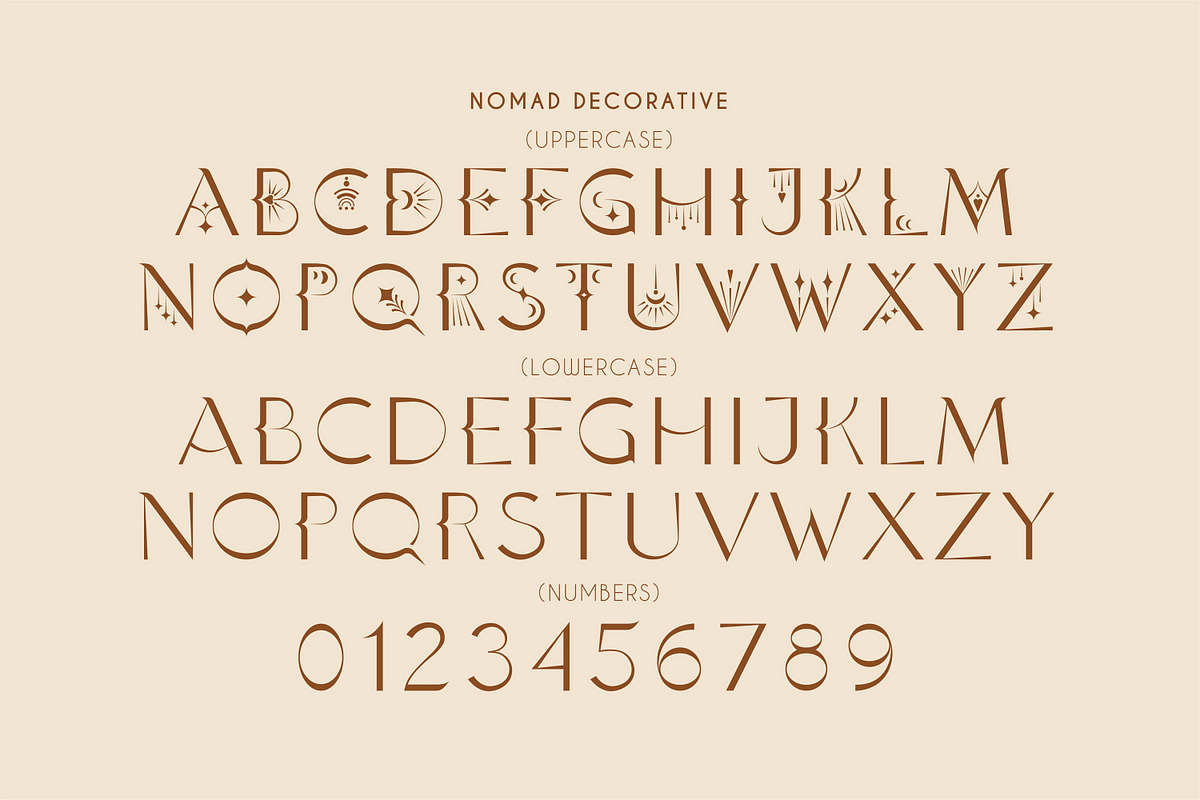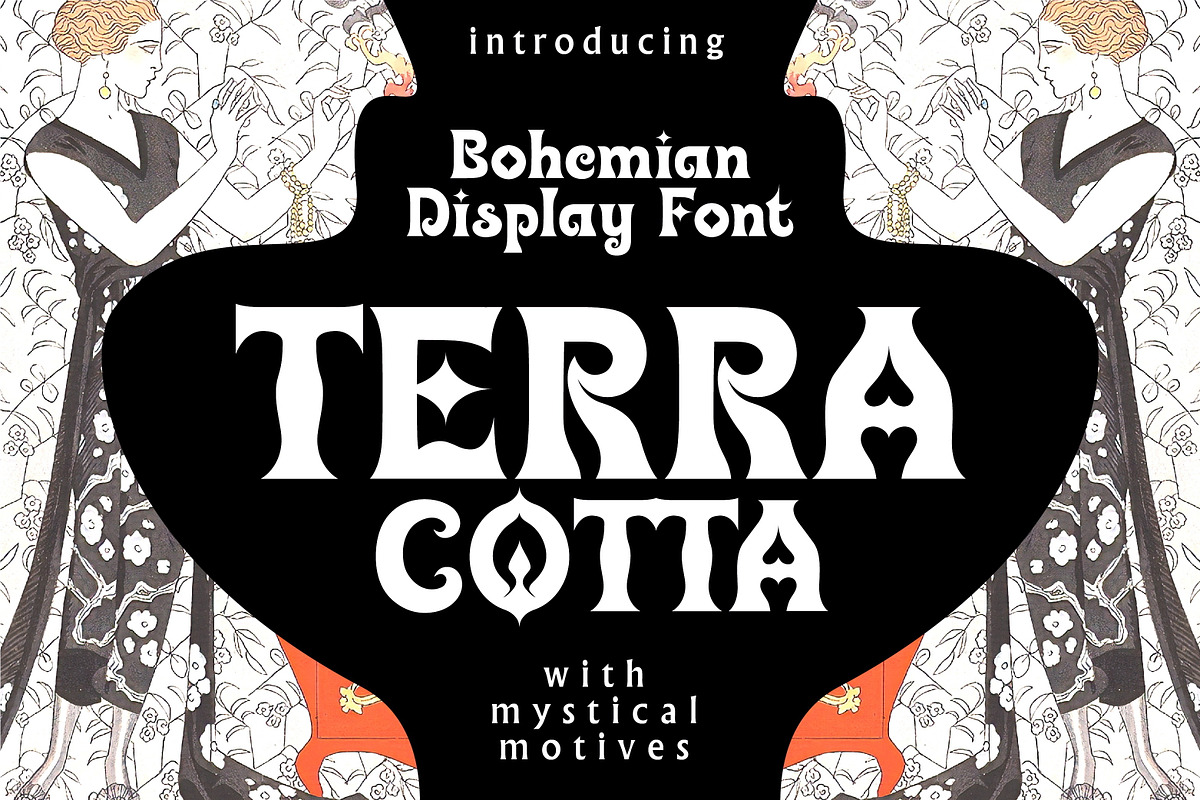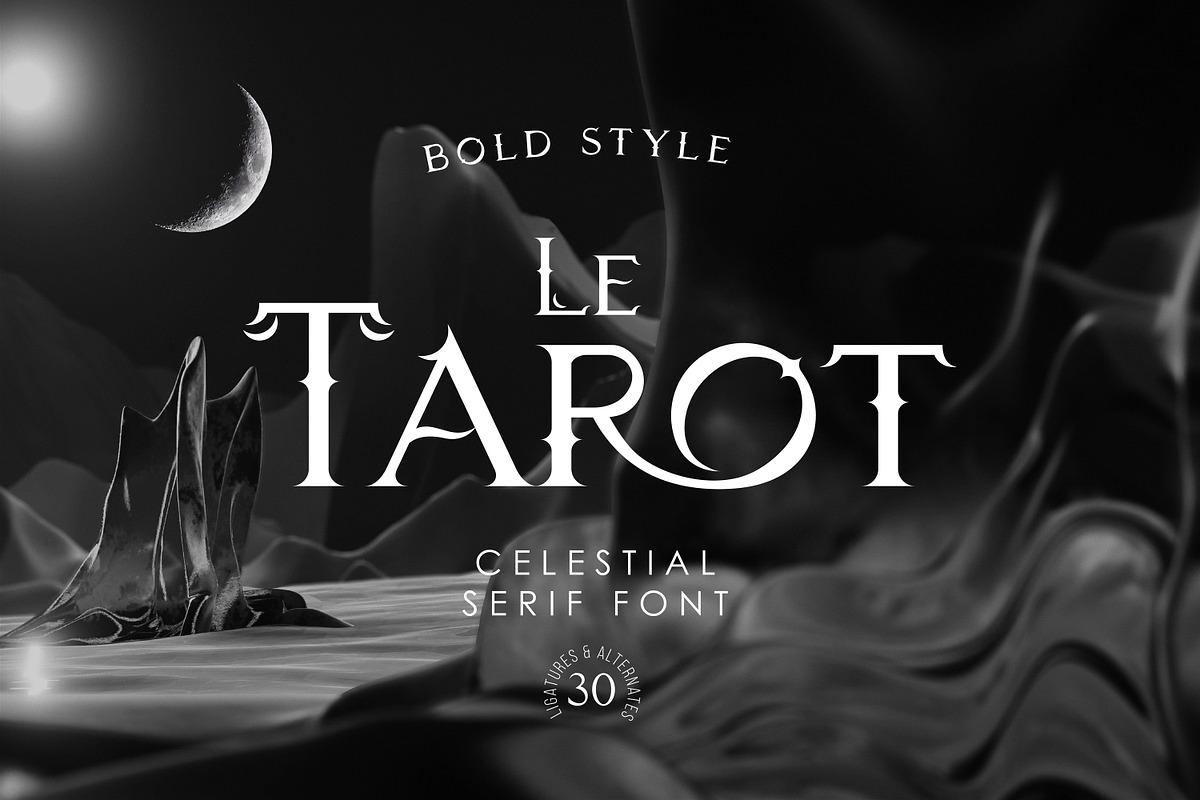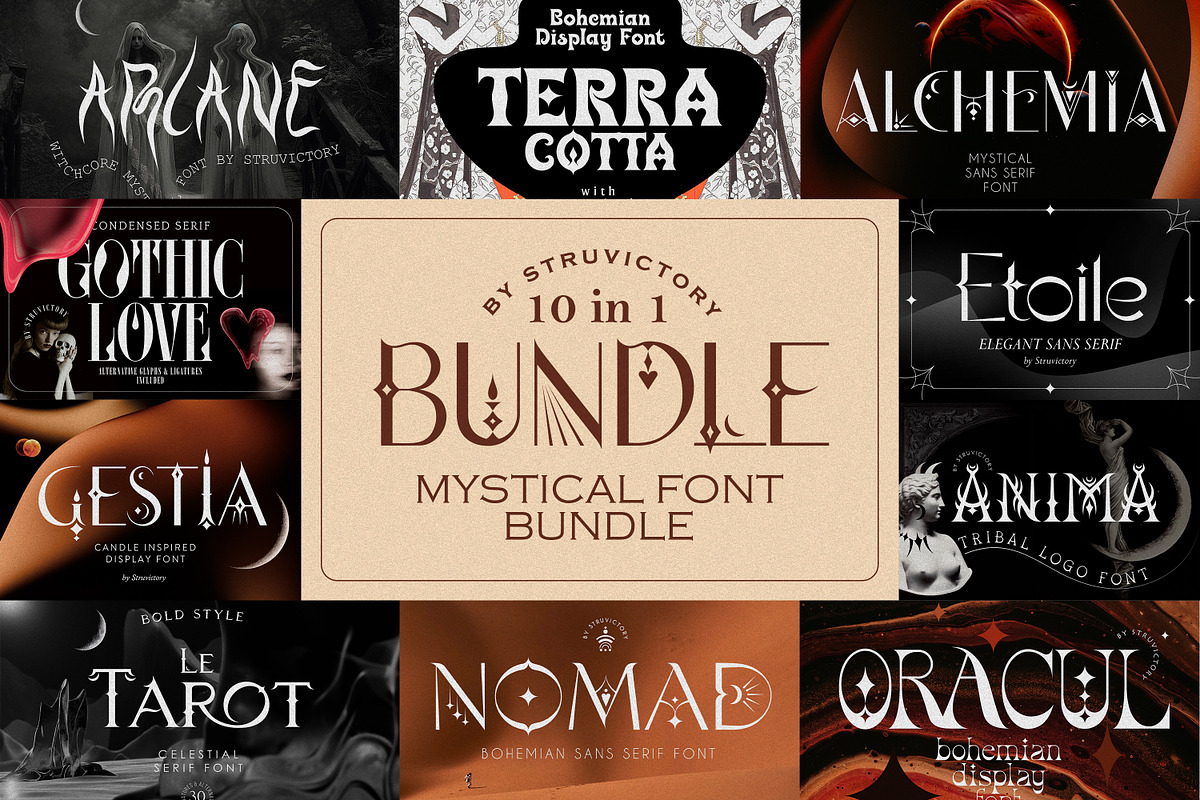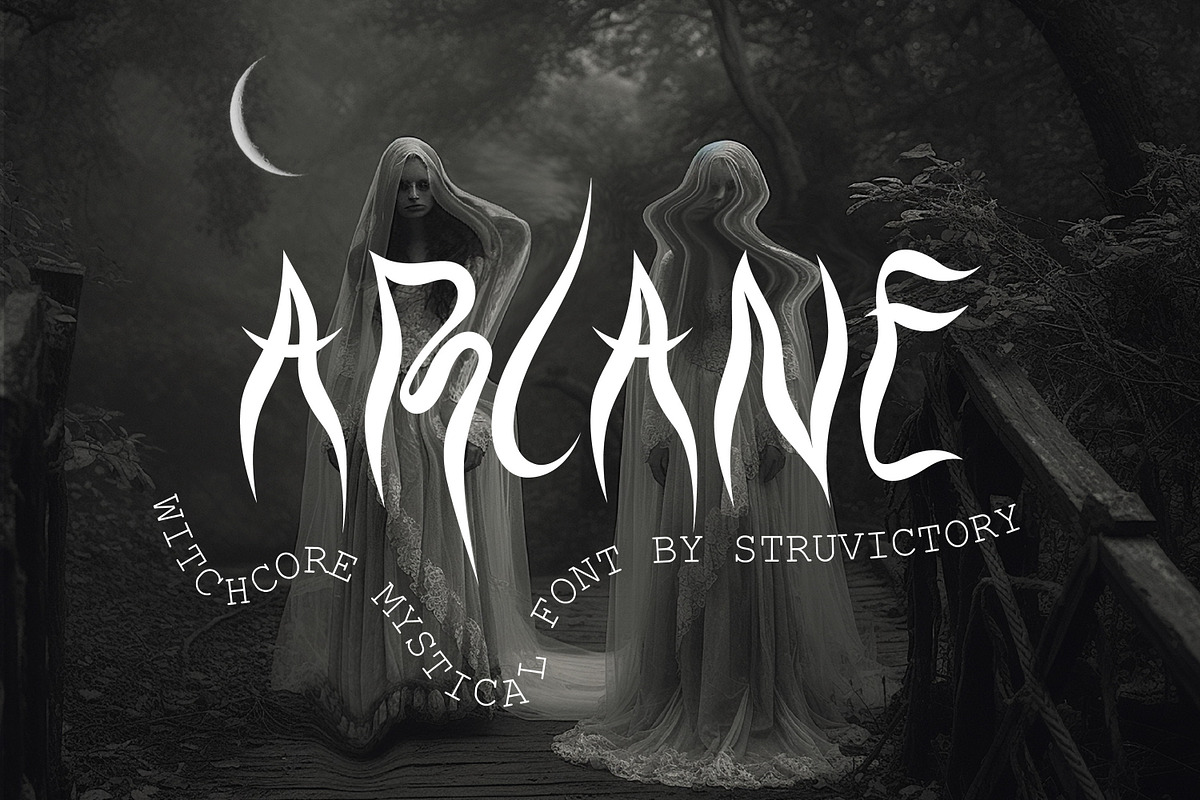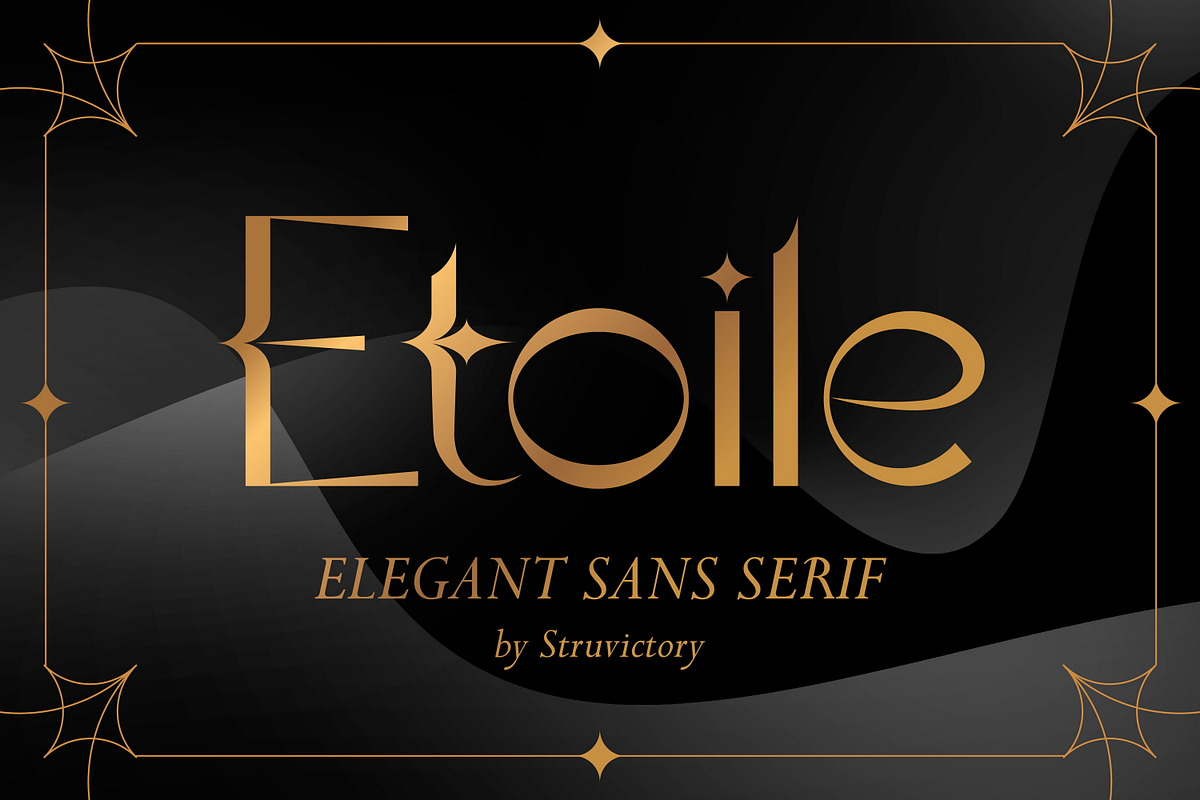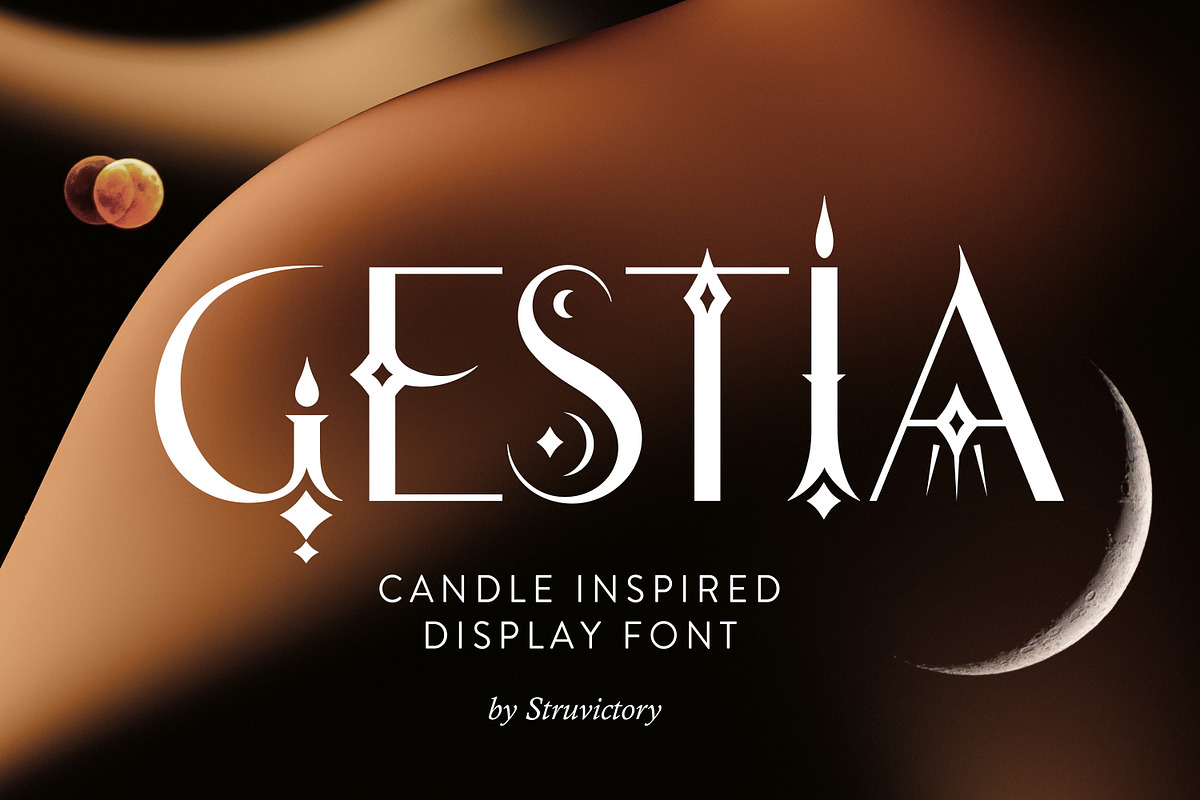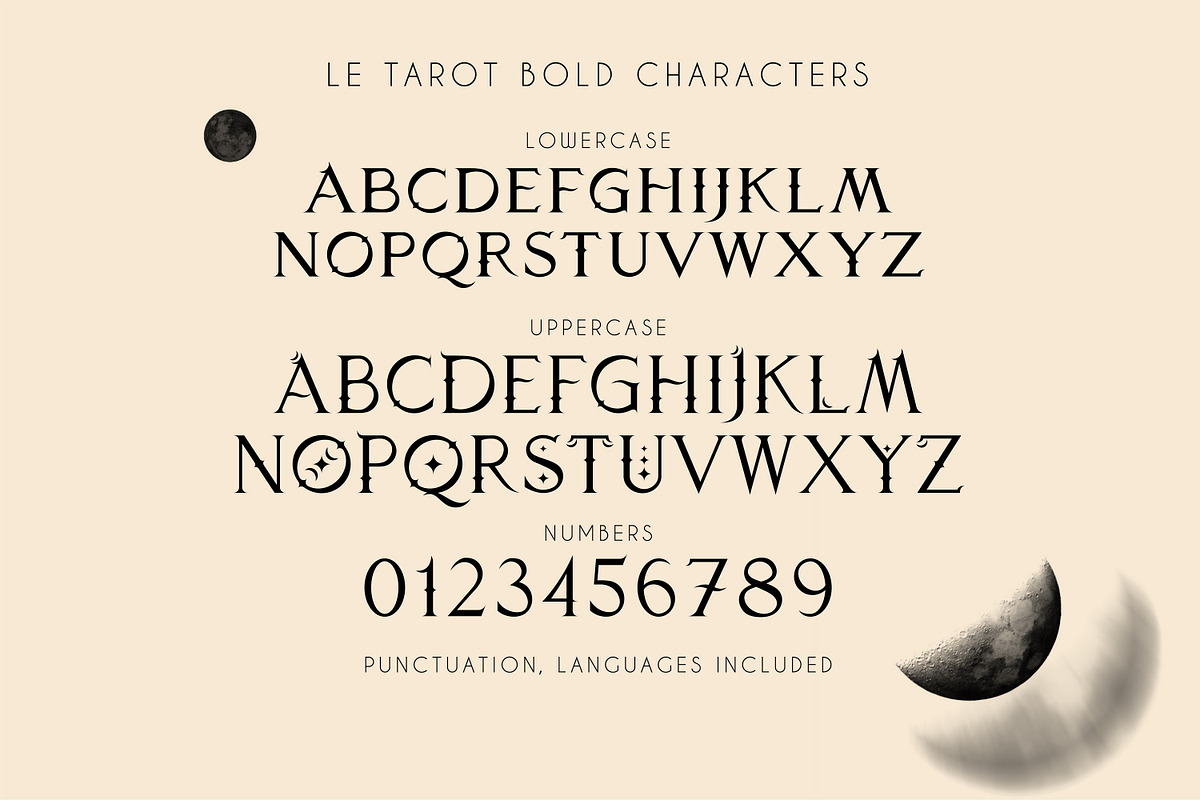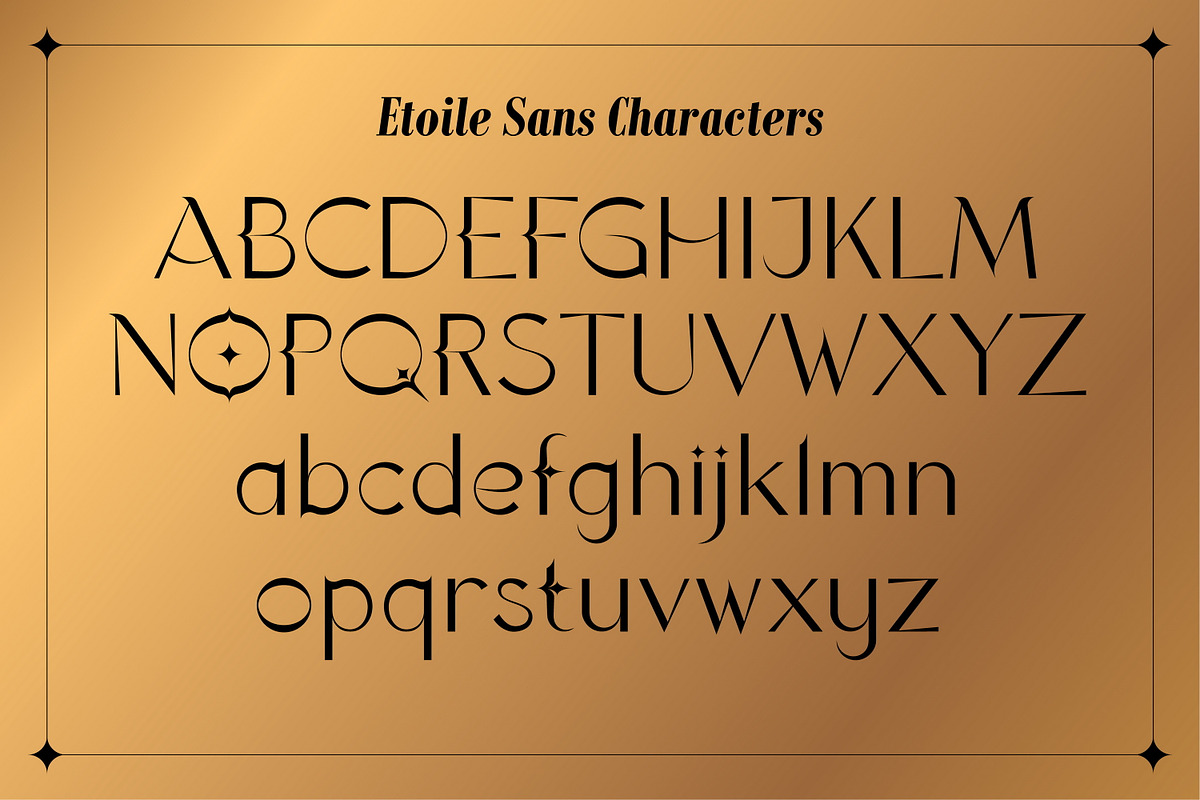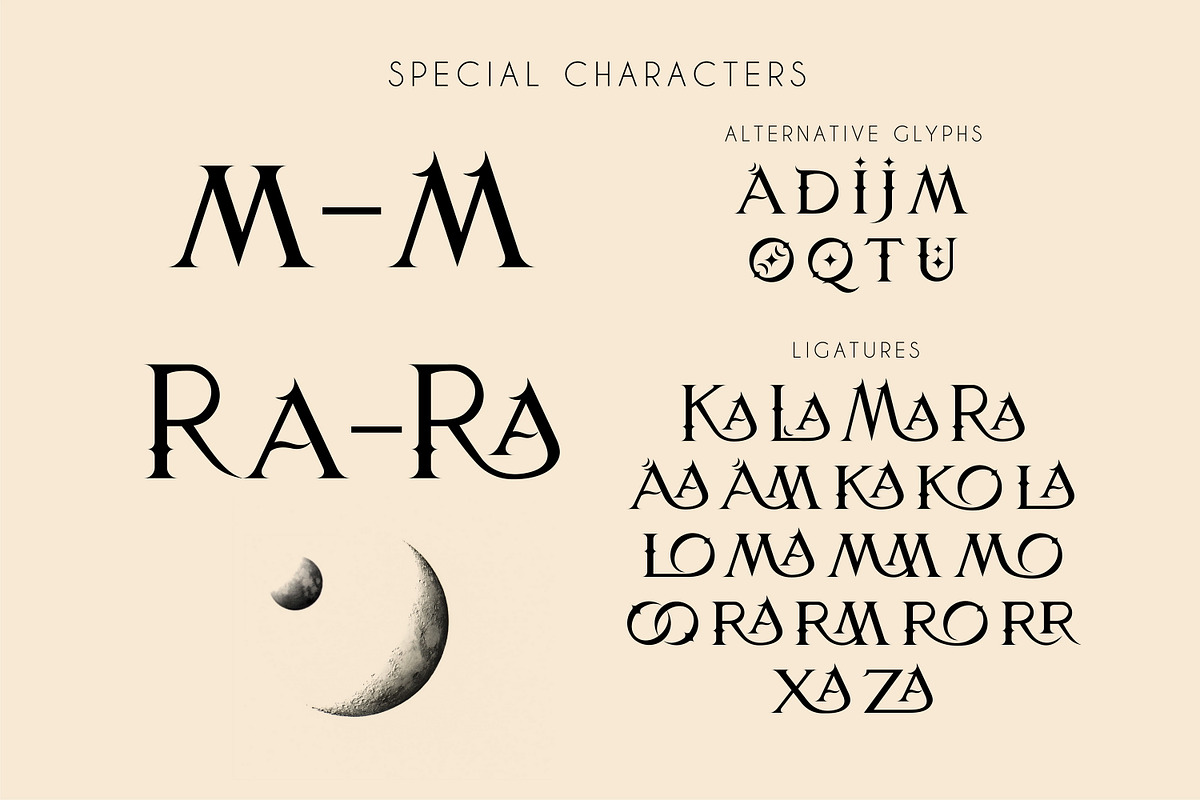
Mystical Font Bundle 10 in 1
This amazing bundle includes astonishing fonts, united by the theme of mysticism, esotericism, gothic, alchemy, witchcraft and Bohemian aesthetics. If you can't choose a font that will highlight the uniqueness and magic of your brand, grab this bundle and try them all.